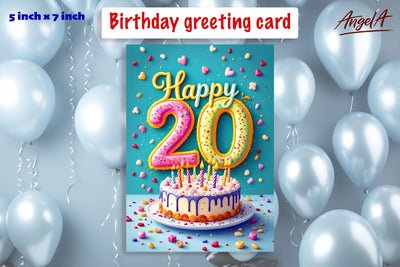
Happy birthday lettering card, Birthday cake, 20 Birthday
Birthday card template for 20 years old is printable colorful Happy birthday card with calligraphic lettering text, birthday cake with candles, confetti.